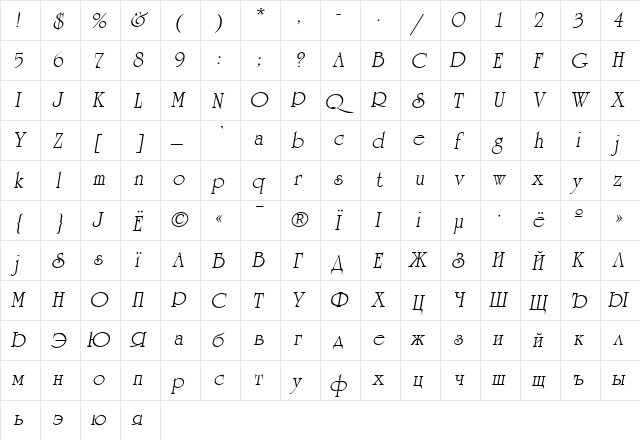
AGReverence-Oblique Medium
Design Context for AGReverence-Oblique Typeface
AGReverence-Oblique is a composed and adaptable typeface that performs quietly and consistently across a wide range of design contexts. The dynamic lean of this cut emphasises speed and emphasis in any layout.